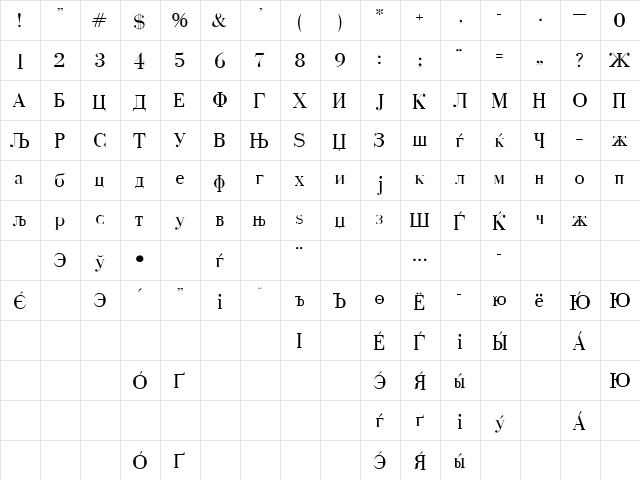
Macedonian Bodoni Normal
Design Context for Macedonian Bodoni Typeface
Macedonian Bodoni offers clean, dependable letterforms without strong stylistic allegiance, making it a practical choice for designers who need flexibility.